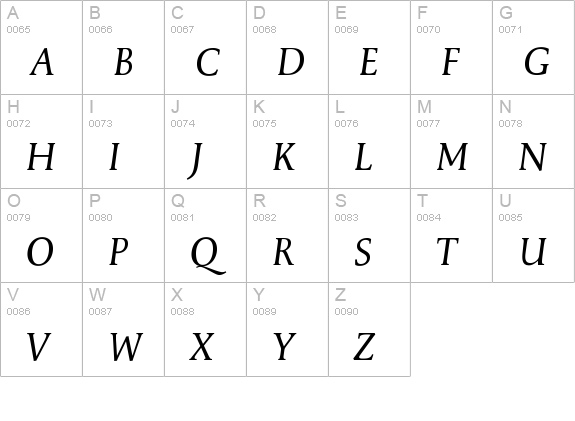
Apolline-Italic is a distinctive, italic variant in the Apolline typeface family \xE2\x80\x94 well suited to design and typography projects.
Apolline-Italic is an exquisite and elegant font that exudes sophistication and charm. With its graceful curves and delicate serifs, this typeface is perfect for adding a touch of class to any project. Whether used for branding, invitations, or editorial design, Apolline-Italic will captivate your audience with its timeless appeal. What sets Apolline-Italic apart is not only its beauty but also its accessibility. This stunning font is available for free download at FontsMarket.com, making it easy for designers and creatives to elevate their work without breaking the bank. Don't miss out on the opportunity to enhance your designs with the effortlessly stylish Apolline-Italic font today!